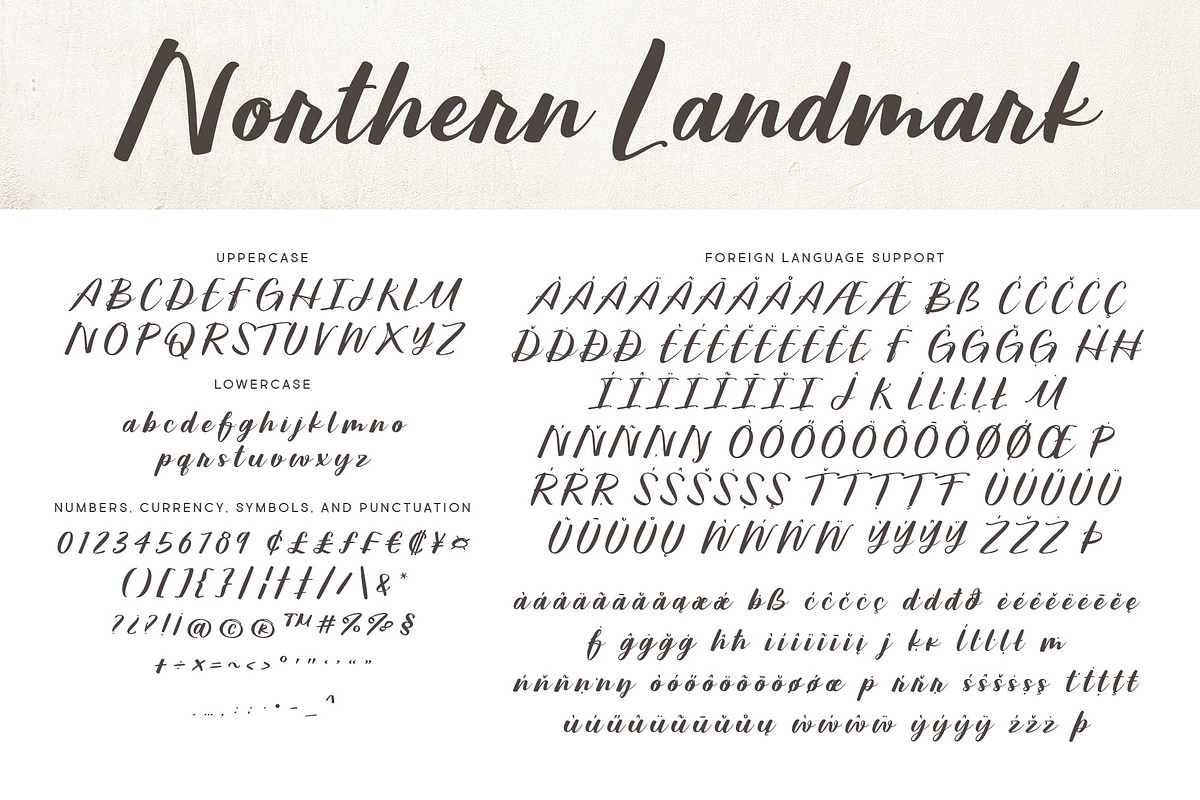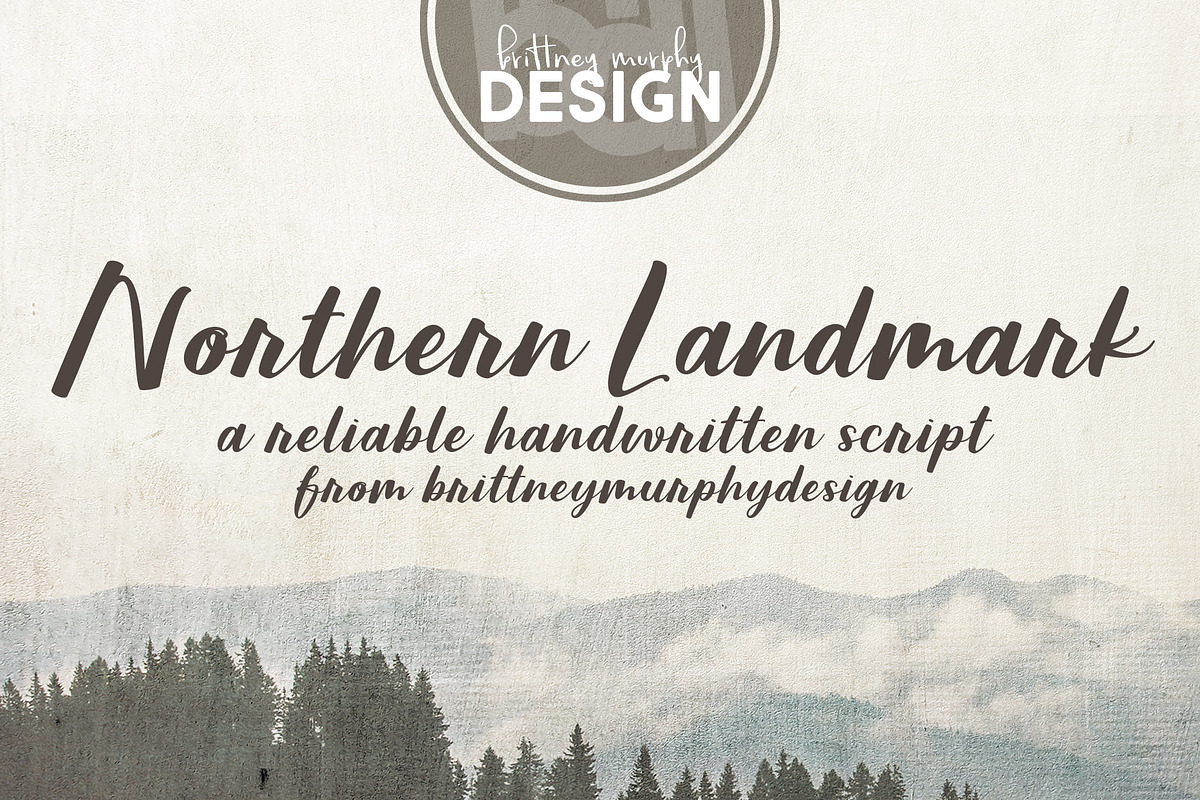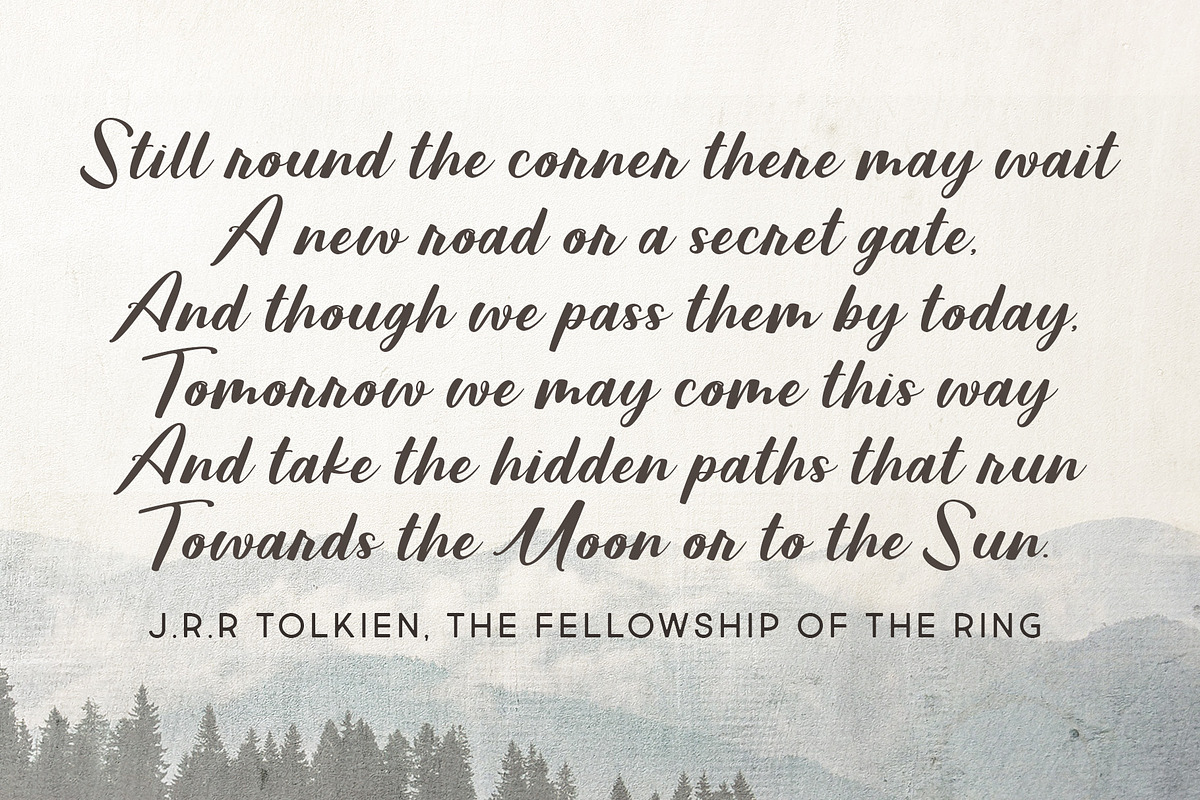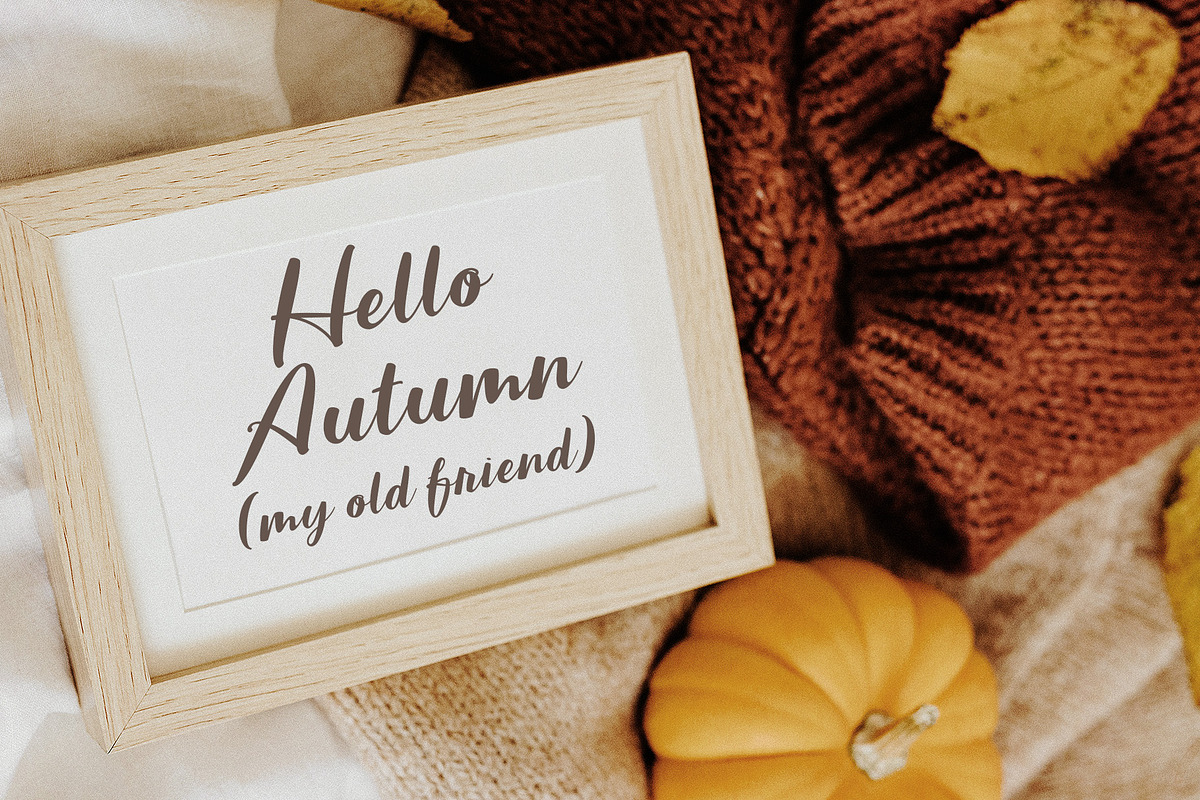
Northern Landmark
Northern Landmark is a handwritten script font created in 2022. Its bold, slanted style makes it perfect for logos and headlines.
The font has over 300 characters, including many accented characters for multilingual support.